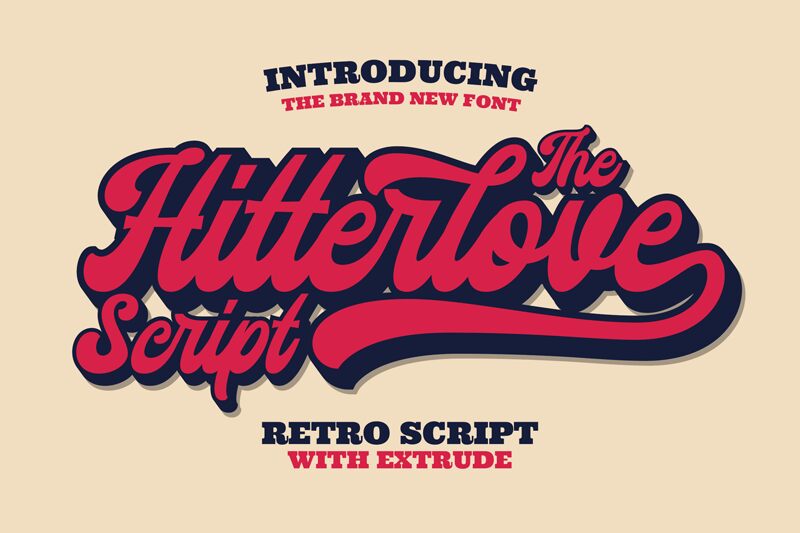
Hitterlove Regular
Hitterlove, crafted by Ahwe Project, stands out as a bold condensed font that seamlessly marries the energy of smooth brush strokes with a retro flair. Its assertive weight commands attention while its sleek contours glide with an elegance reminiscent of vintage hand-lettering. This typeface is tailored for those seeking to infuse their designs with a touch of classic sophistication balanced by modern dynamism.
Whether it's branding, editorial work, or compelling advertising, Hitterlove promises to deliver a distinctive visual impact that resonates across various applications.